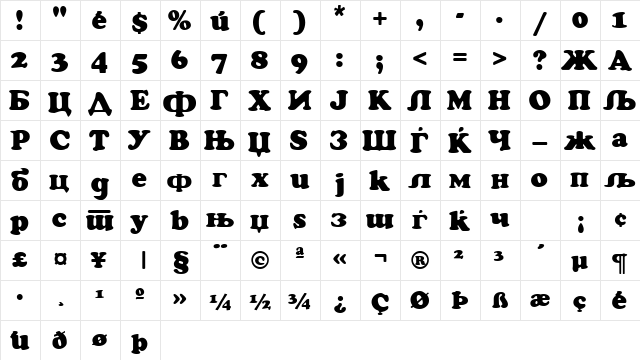
Macedonian Cupertino Regular
Design Context for Macedonian Cupertino Typeface
Macedonian Cupertino offers clean, dependable letterforms without strong stylistic allegiance, making it a practical choice for designers who need flexibility.